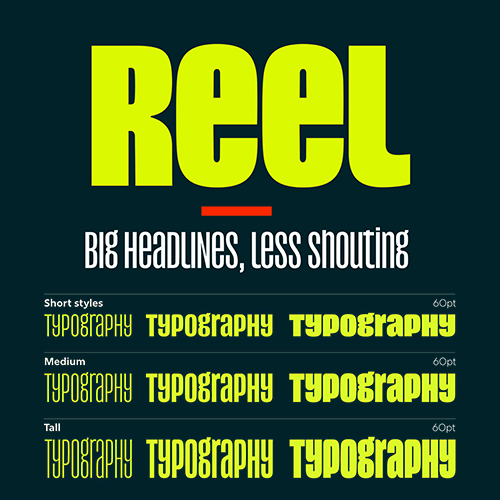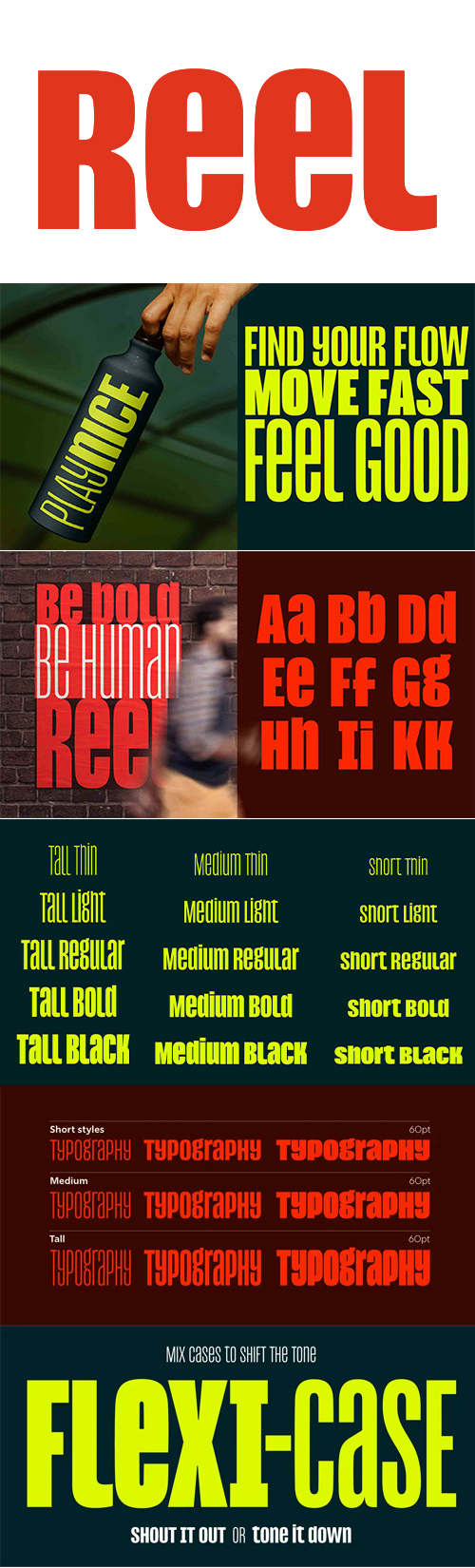
Reel - 15 Styles Font Family
- Reel brings a human touch and expressive control to bold headline typography. Its Flexi-case system gives lowercase equal height and presence to capitals, letting you mix cases without breaking the neat rectangular structure usually associated with all-caps type. Designed for creatives who want impact without the need to shout, Reel balances strength with nuance. Mix cases to soften or sharpen tone, then fine-tune weight and height to fit headlines neatly into almost any space. Reel: Big headlines, more control.